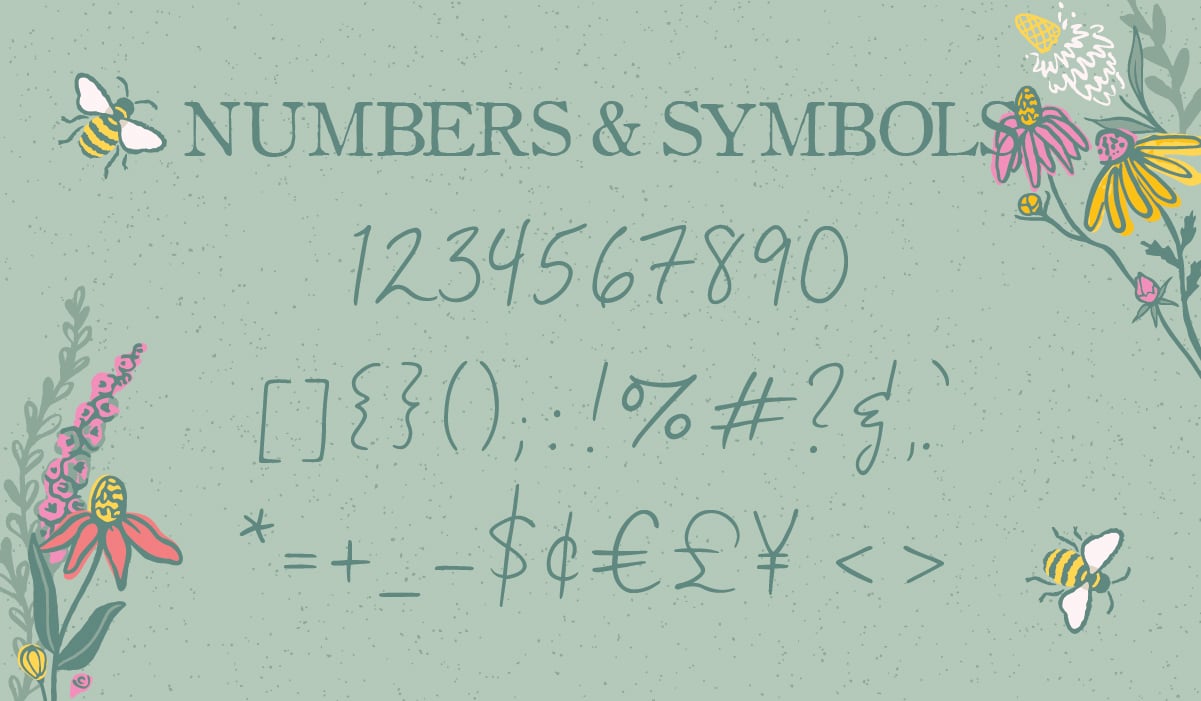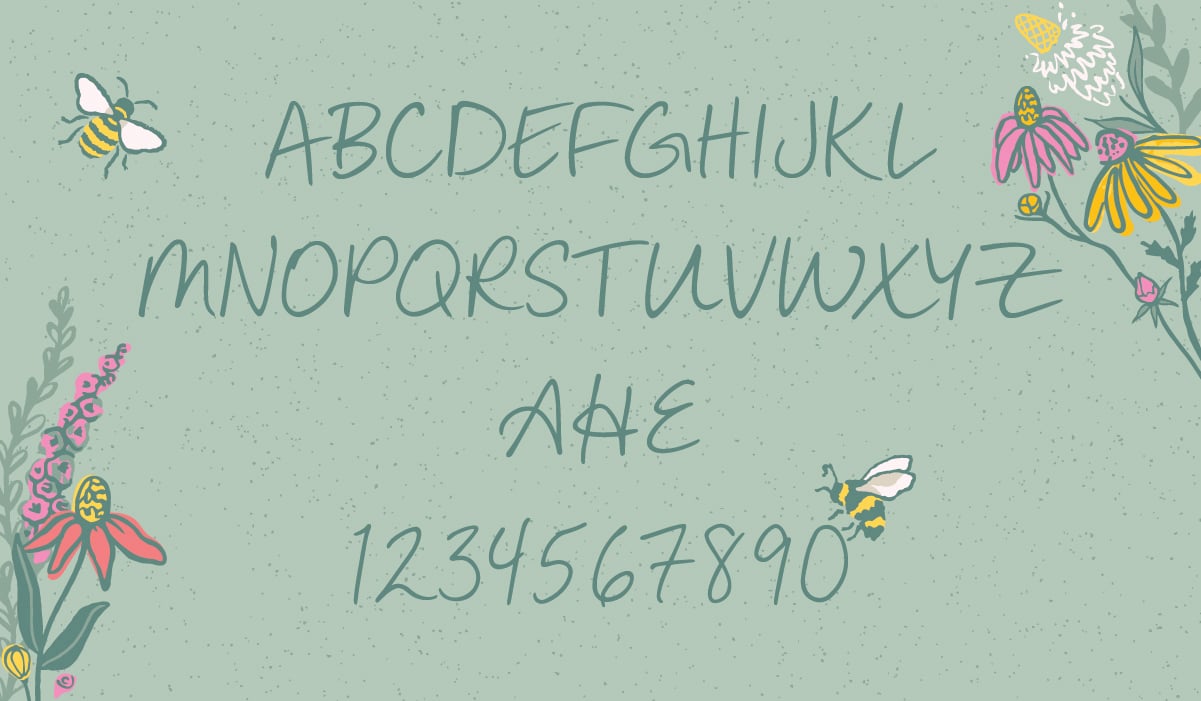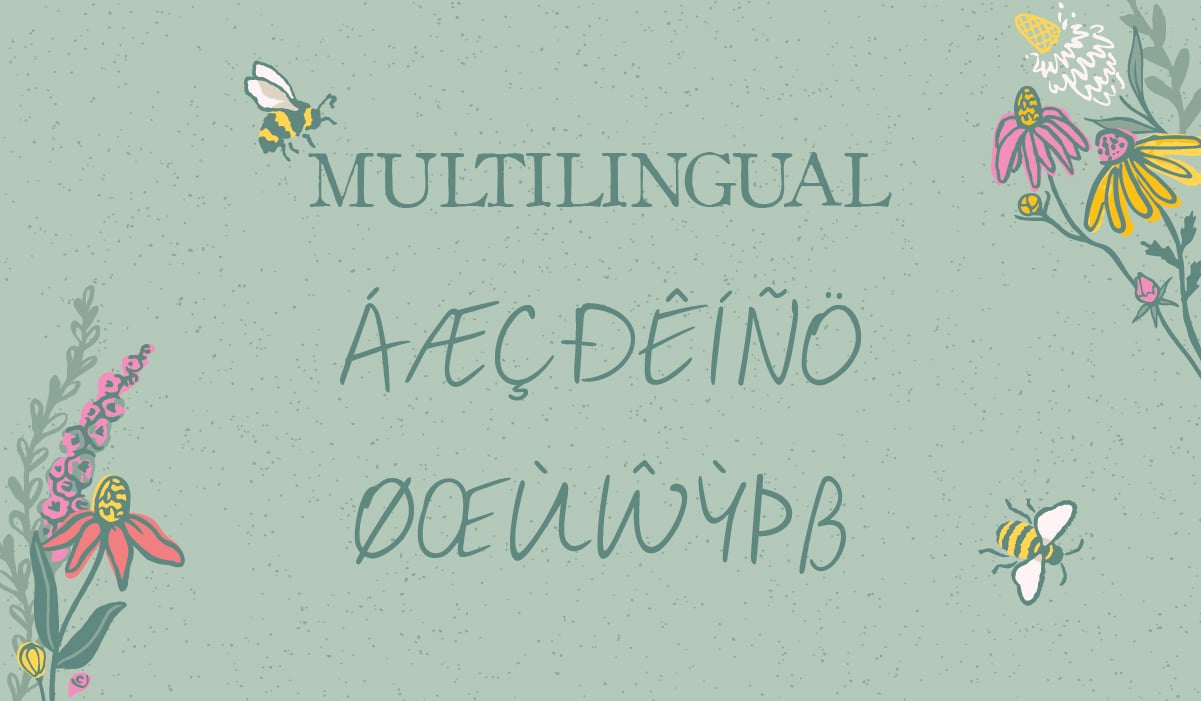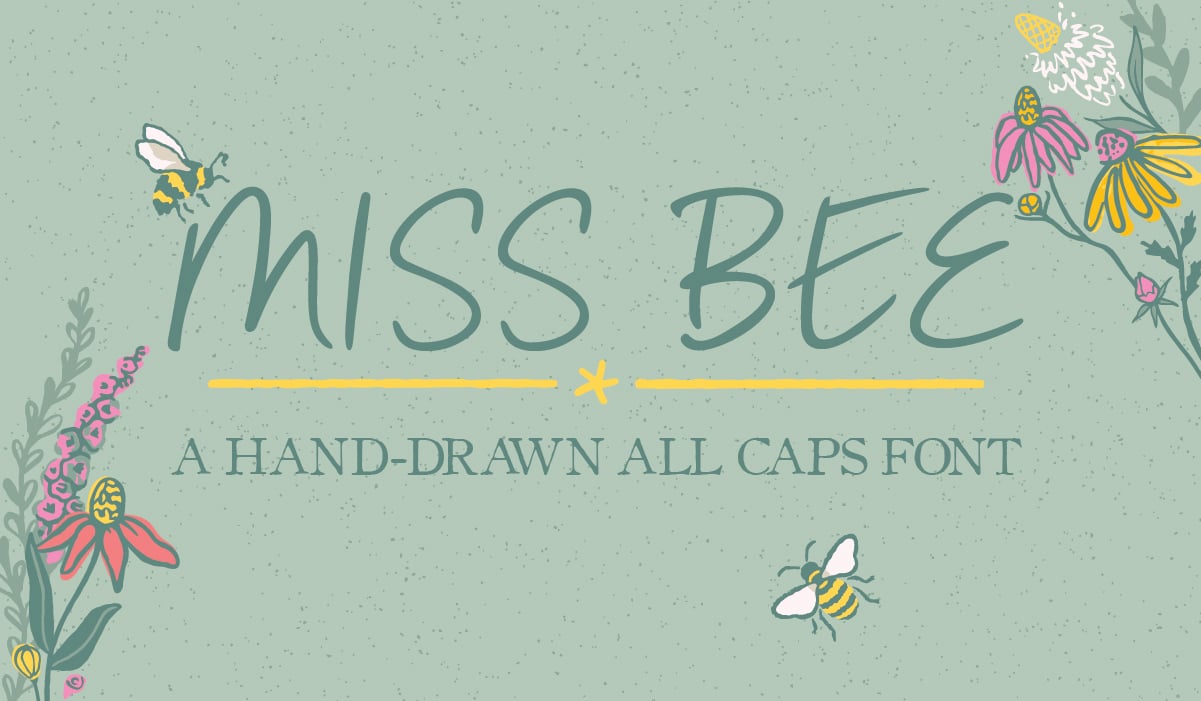
Miss Bee All Caps Font
Miss Bee, now in all caps! Miss Bee is my handwriting in a font, and I'm not sure why, but my capital letters turn out a bit different when I'm writing in all caps. A little less fancy, but still with that fun, hand-written vibe. Includes a few stylistic alternates, matching numbers & symbols, and is multilingual. (Note: You can buy Miss Bee Script and All Caps in my Miss Bee Font Bundle.)